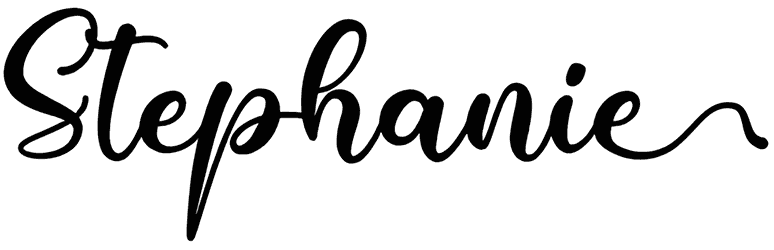
Stephanie Font
This calligraphy-style handwritten font is called Stephanie, and you can use it for everything from logos and blog headlines to typography and banners.